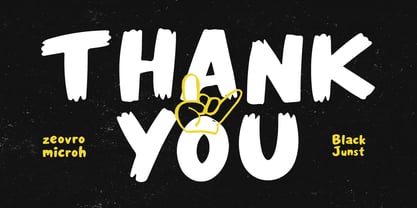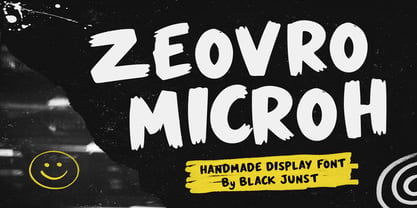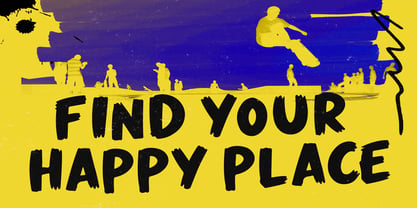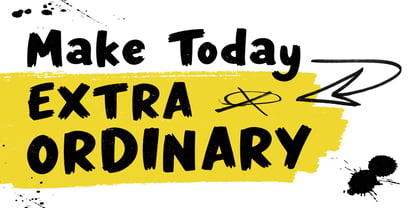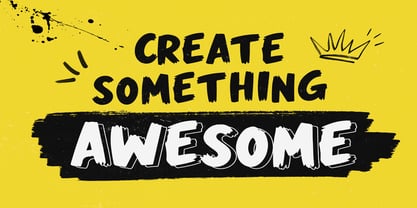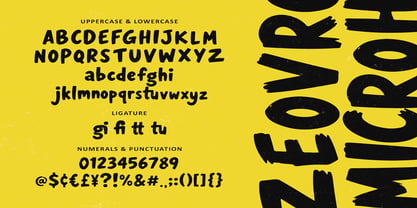
Zeovro Microh
A família de fontes Zeovro Microh foi desenhada por Maulana Semar e publicada pela Black Junst. Zeovro Microh contém 3 estilos e opções de pacote familiar. Saiba mais sobre esta família
Zeovro Microh is a bold handmade display font inspired by expressive brush strokes, street art, and handcrafted lettering. Designed with rough organic edges and a natural painted texture, this font instantly creates a strong visual impact while maintaining excellent readability.
Created for designers who need an authentic handcrafted look, Zeovro Microh is perfect for branding, logos, posters, packaging, apparel, social media graphics, YouTube thumbnails, album covers, children's products, food branding, cafés, beverage labels, quotes, invitations, merchandise, and modern advertising.
The family includes 3 versatile styles—Regular, Italic, and Outline—making it easy to combine different looks within one project. Use the Regular style for bold headlines, Italic for energetic movement, and Outline for layered typography or eye-catching display compositions.
Whether you're creating a fun brand identity or a bold marketing campaign, Zeovro Microh delivers a unique handmade personality that stands out across both print and digital media.